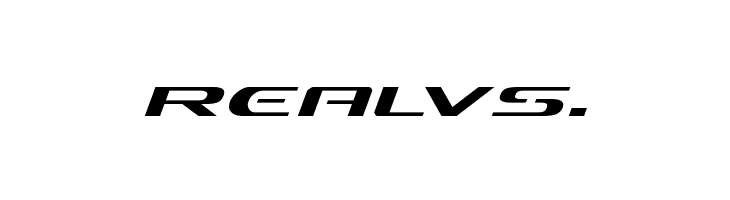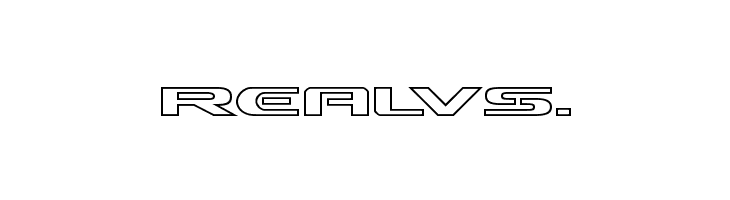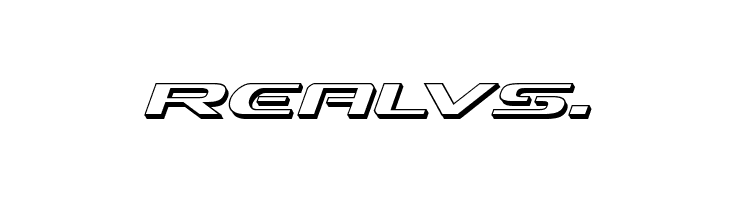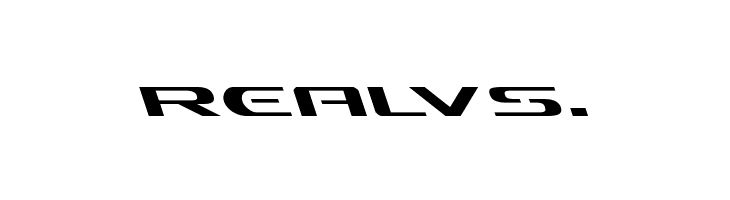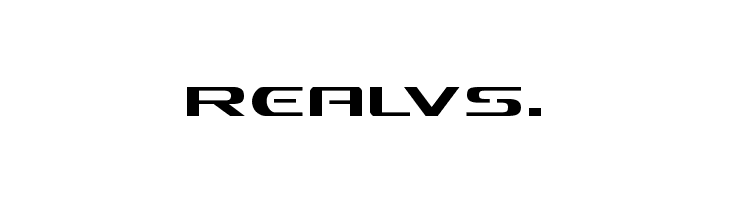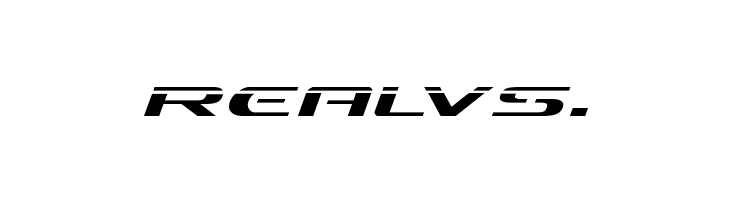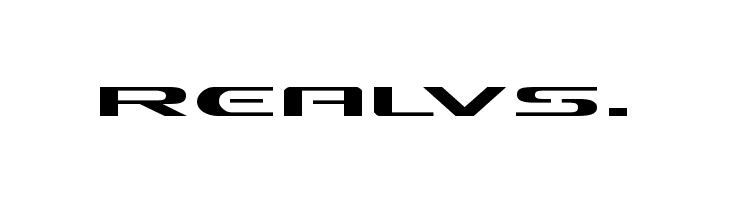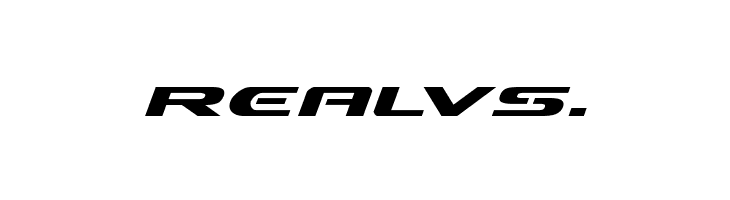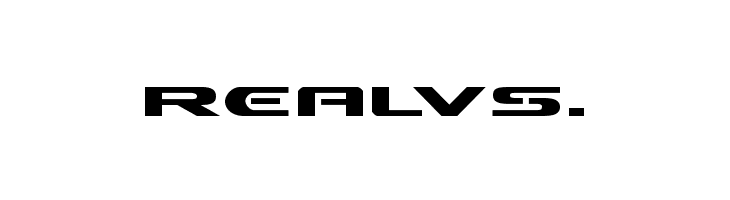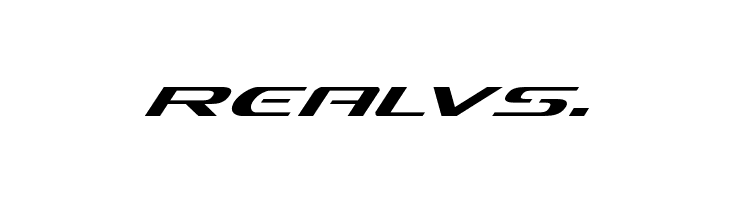
• Alpha Men
A bold, futuristic font with geometric shapes and sharp angles.
• Alpha Men
A futuristic, geometric font with bold, angular letterforms.
• Alpha Men 3D
A bold, 3D geometric font with a futuristic style.
• Alpha Men 3D Italic
A bold, 3D italic font with a futuristic and dynamic style.